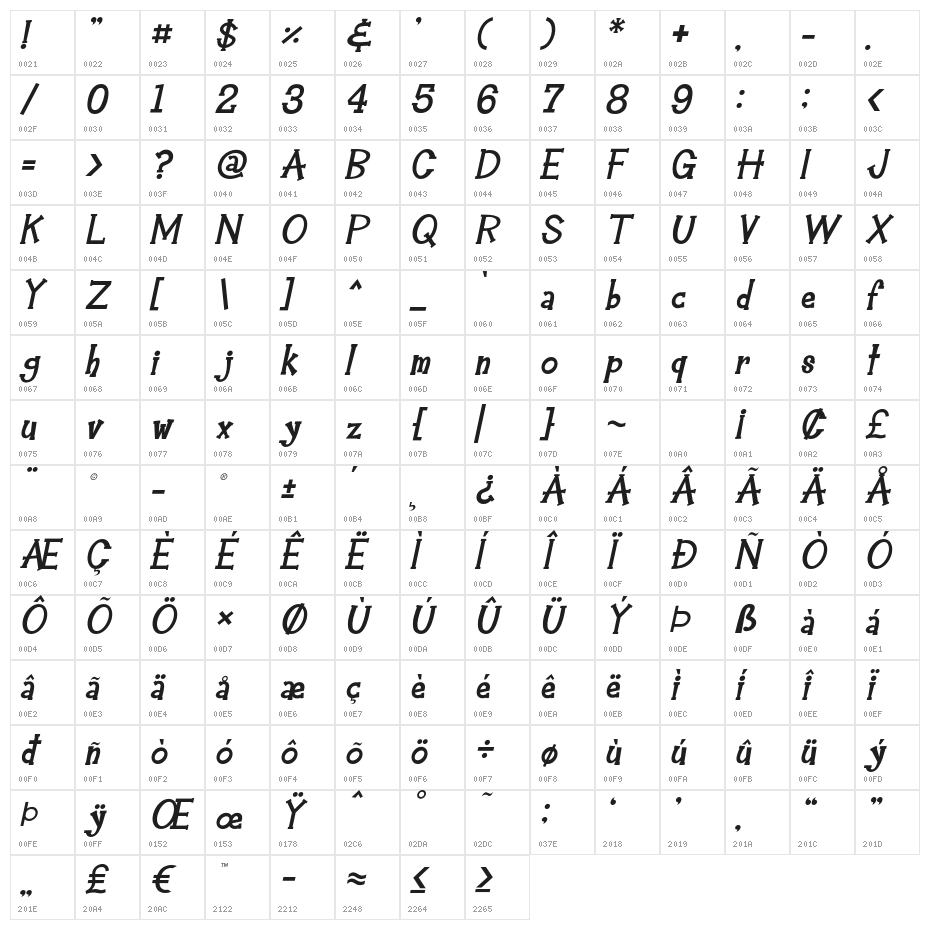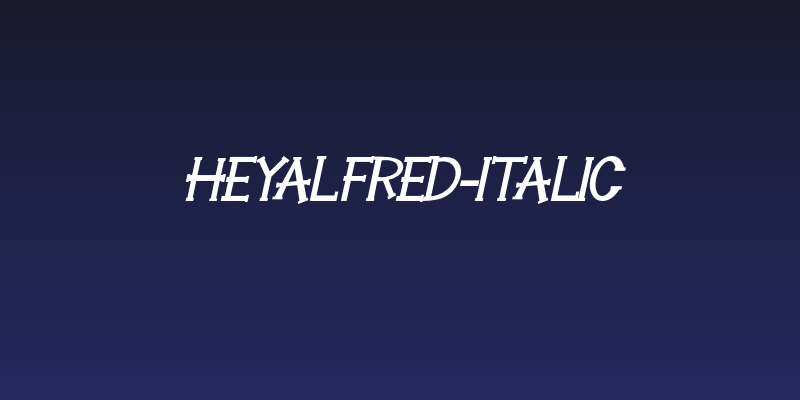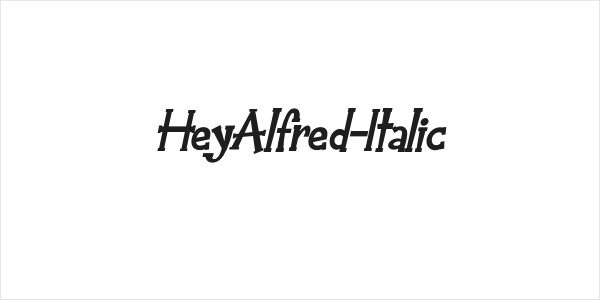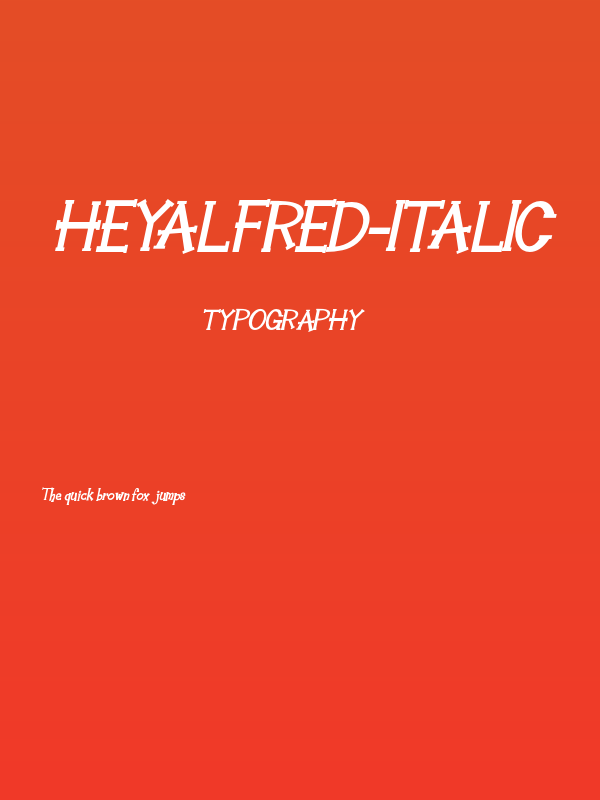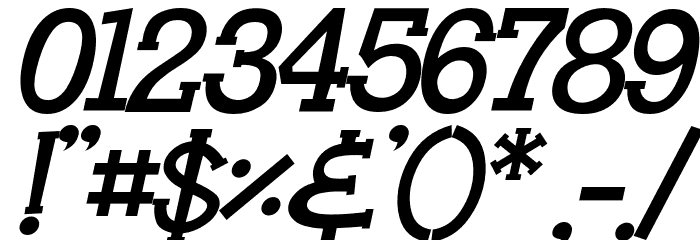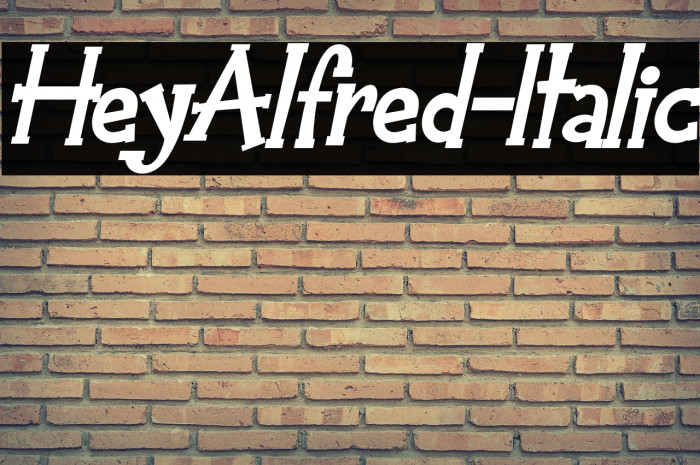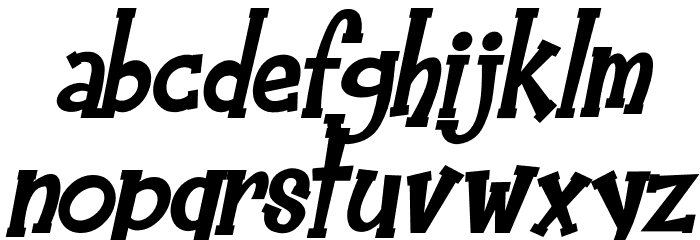
HeyAlfred-Italic Font
HeyAlfred-Italic Description
This font features a dynamic and energetic italic style, characterized by its slanted and slightly condensed letterforms. The uppercase letters exhibit a bold presence with sharp angles and a consistent stroke width, while the lowercase letters maintain a playful yet structured appearance. The numerals are clear and legible, matching the overall boldness of the alphabet. Special characters are designed with the same attention to detail, ensuring a cohesive look across all glyphs. The font's italic nature gives it a sense of motion and fluidity, making it suitable for projects that require a touch of elegance and emphasis.
| Proposed Projects | Ideal for branding, advertising, and editorial design where a bold and energetic style is desired. |